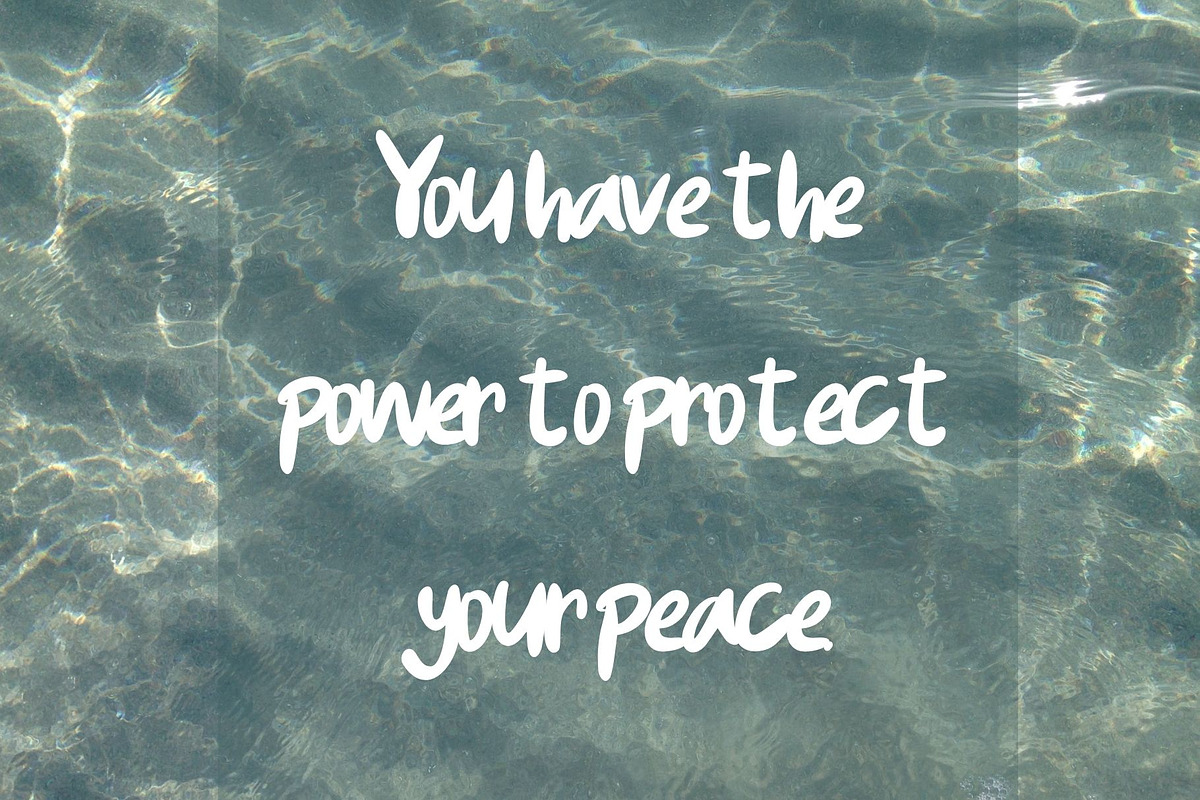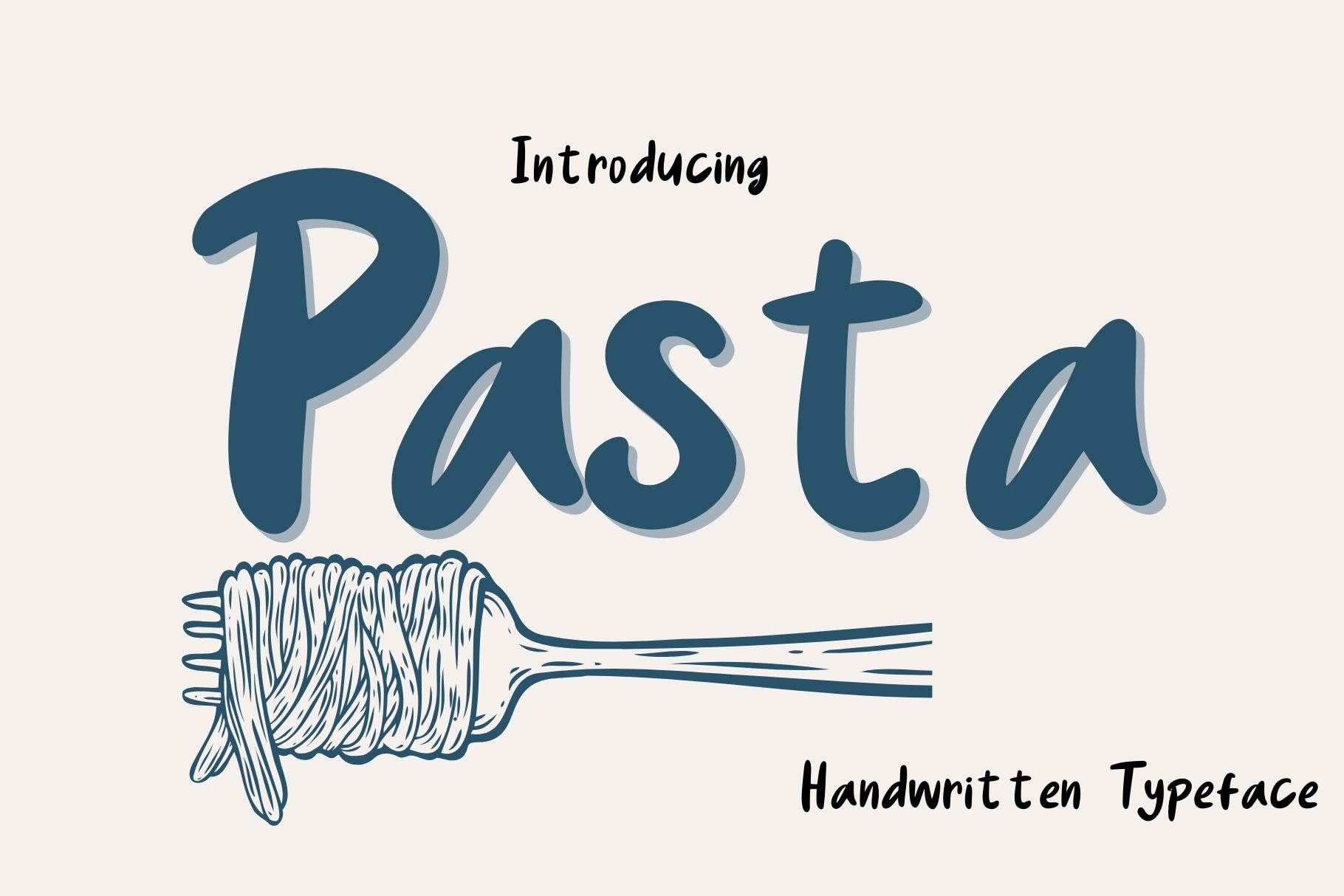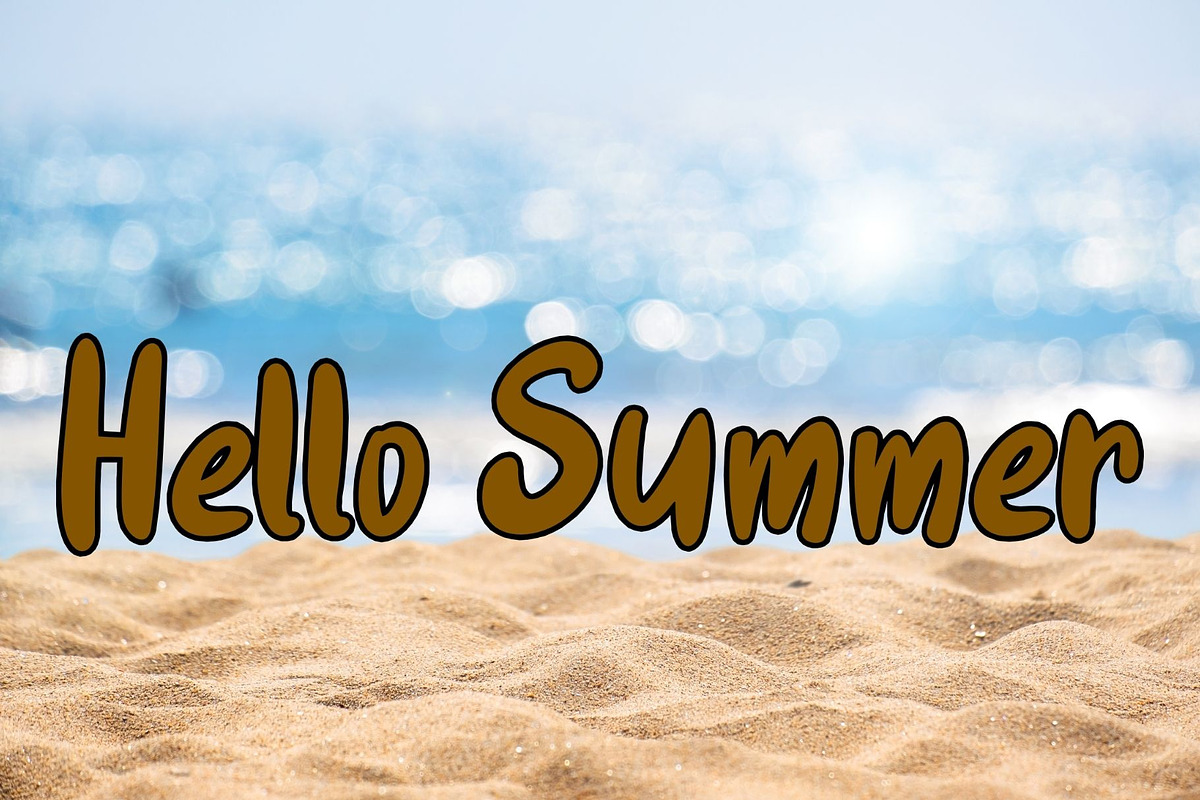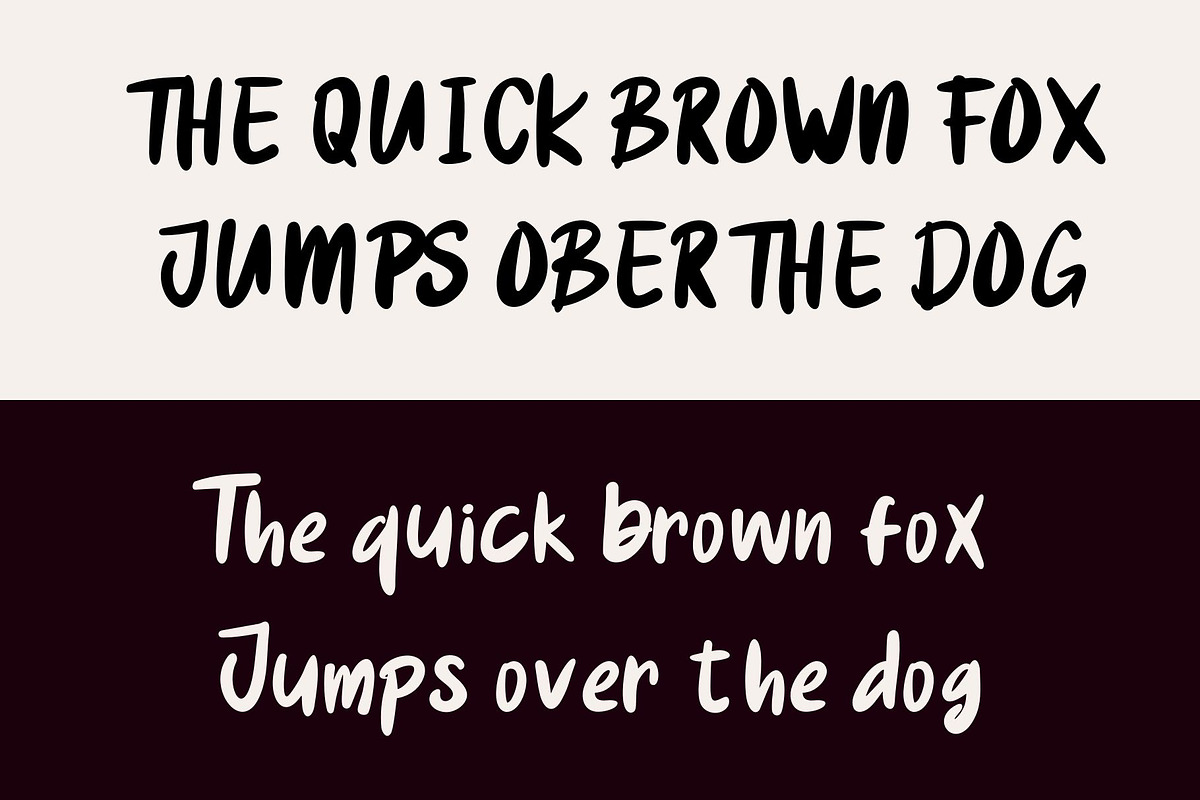
Pasta-Handwritten Typeface
Pasta is a cool, friendly and organic handwritten font. No matter the topic, this font will be an incredibly asset to your fonts’ library, as it has the potential to elevate any creation